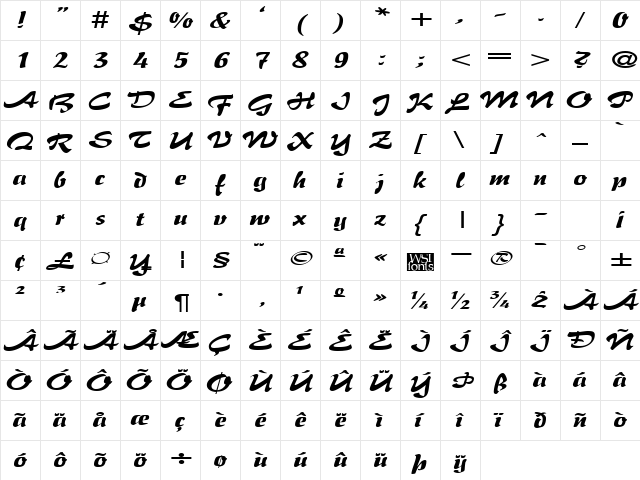
BrushFlairExpanded Regular Font Preview
BrushFlairExpanded Regular
BrushFlairExpanded Regular Font Details
Design Context for BrushFlairExpanded Typeface
BrushFlairExpanded brings a calligraphic fluidity to the page — its connecting strokes and expressive curves give it an unmistakably human quality.